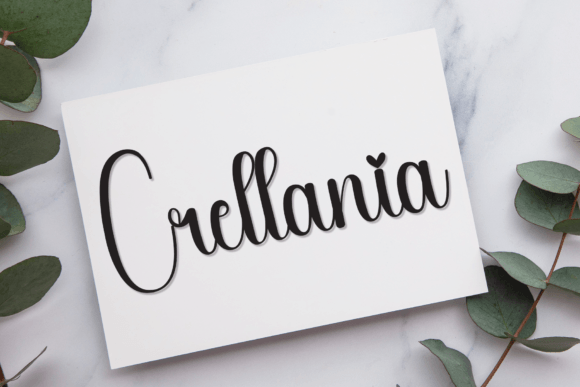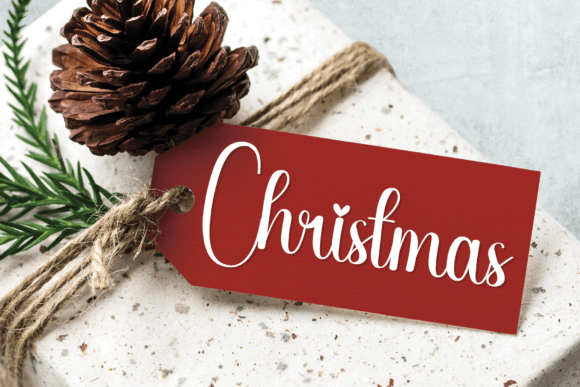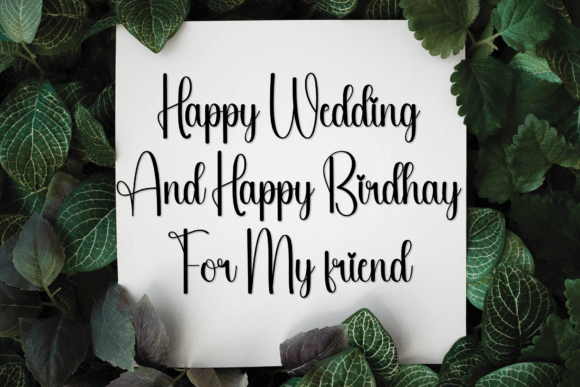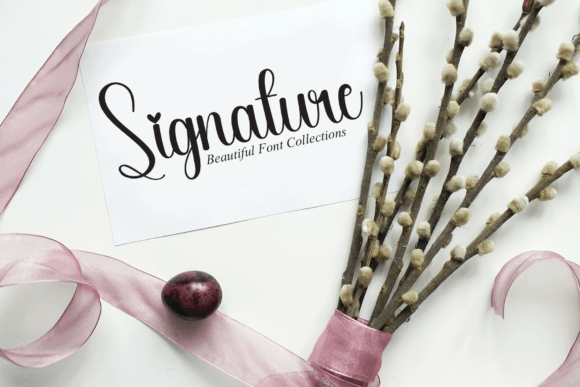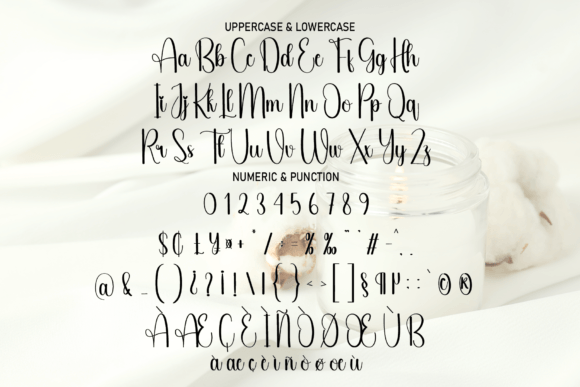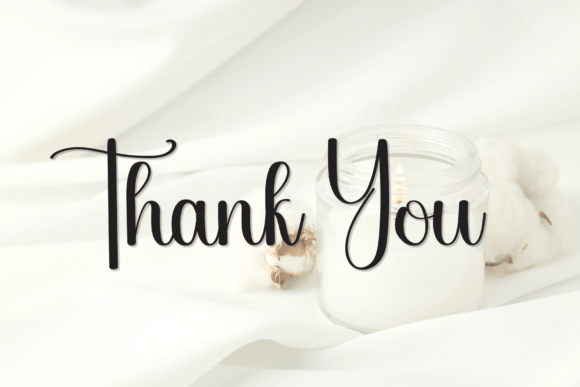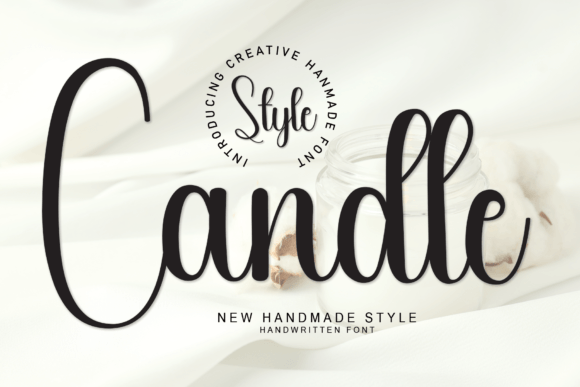
Candle Font: Elevate Your Designs with a Neat and Casual Handwritten Style
Are you on the hunt for a font that can add a personal touch to your designs? Look no further than Candle Font, a beautifully crafted handwritten font that’s both neat and casual. With its incredible versatility, Candle Font is perfect for a wide range of applications, from crafting charming invitations to creating stunning branding materials. In this article, we’ll dive into the world of Candle Font and explore how it can elevate your designs and make them stand out.
The Charm of Candle Font
Candle Font is a unique and captivating font that’s sure to capture the hearts of designers and crafters alike. Its handwritten style exudes a sense of warmth and friendliness, making it perfect for designs that require a personal touch. Whether you’re creating wedding invitations, party decorations, or social media graphics, Candle Font is sure to add a touch of elegance and sophistication.
One of the standout features of Candle Font is its incredible versatility. This font can be used in a wide range of applications, from:
- Party decorations and signage
- Branding materials and packaging
Wherever you need to add a personal touch to your designs, Candle Font is the perfect choice. Its neat and casual style makes it easy to read and understand, while its handwritten charm adds a touch of personality and whimsy.
Why Choose Candle Font?
So why choose Candle Font over other fonts? Here are just a few reasons why designers and crafters love this font:
- Unique and eye-catching: Candle Font is a one-of-a-kind font that’s sure to grab attention and make your designs stand out.
- Easy to read: Despite its handwritten style, Candle Font is incredibly easy to read and understand, making it perfect for body text and headlines.
- Versatile: Whether you’re designing for print or digital, Candle Font is the perfect choice for a wide range of applications.
- High-quality: Candle Font is a high-quality font that’s been carefully crafted to ensure that it looks amazing in any design.
Tips for Using Candle Font
Now that we’ve covered the basics of Candle Font, here are a few tips for using it in your designs:
- Pair it with bold fonts: Candle Font looks amazing when paired with bold fonts, which can help to create a striking contrast and add visual interest to your designs.
- Use it for headings: Candle Font is perfect for headings and titles, where its handwritten charm can really shine.
- Experiment with colors: Candle Font looks amazing in a wide range of colors, so don’t be afraid to experiment and find the perfect hue for your design.
In conclusion, Candle Font is a beautifully crafted handwritten font that’s perfect for designers and crafters who want to add a personal touch to their designs. With its incredible versatility, unique charm, and high-quality design, Candle Font is sure to become a favorite in your font collection. So why wait? Download Candle Font today and start creating stunning designs that stand out from the crowd!
Whether you’re a seasoned designer or a crafting enthusiast, Candle Font is the perfect choice for anyone who wants to add a touch of elegance and sophistication to their designs. So go ahead, get creative, and see how Candle Font can elevate your designs to the next level!